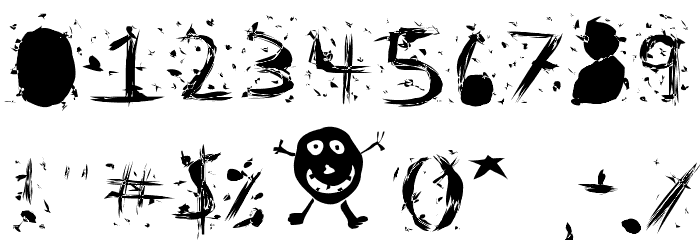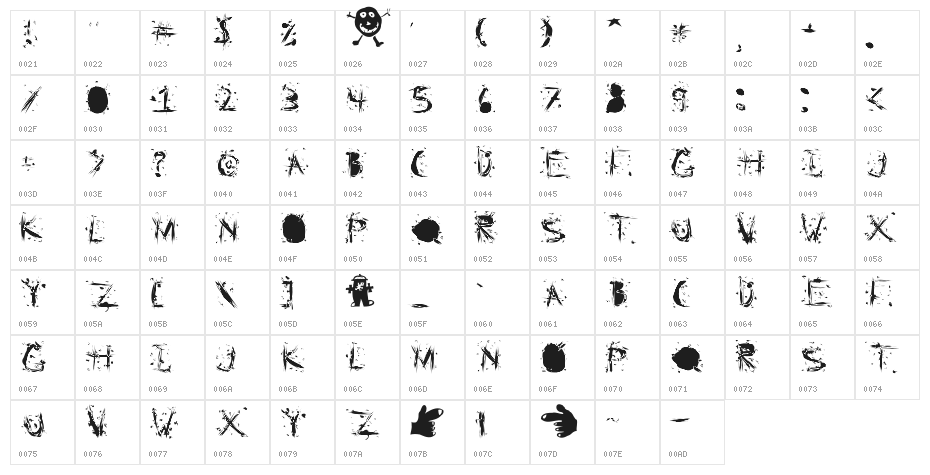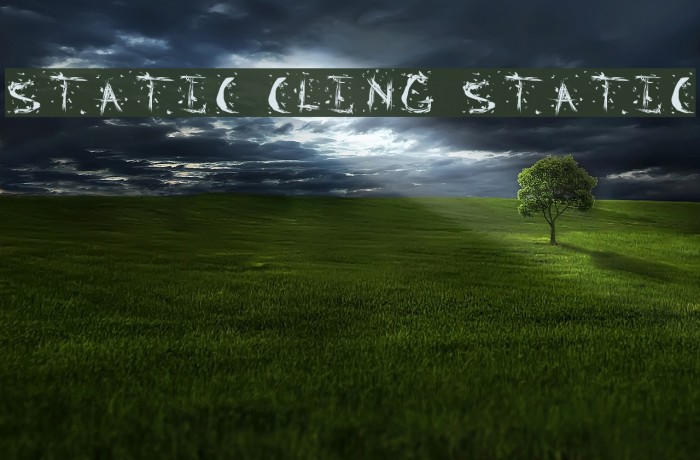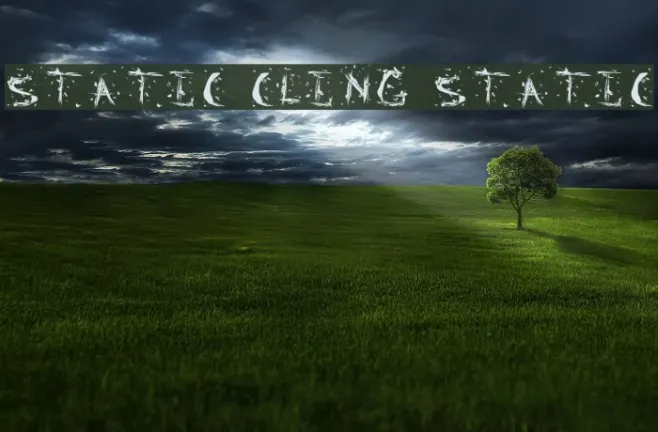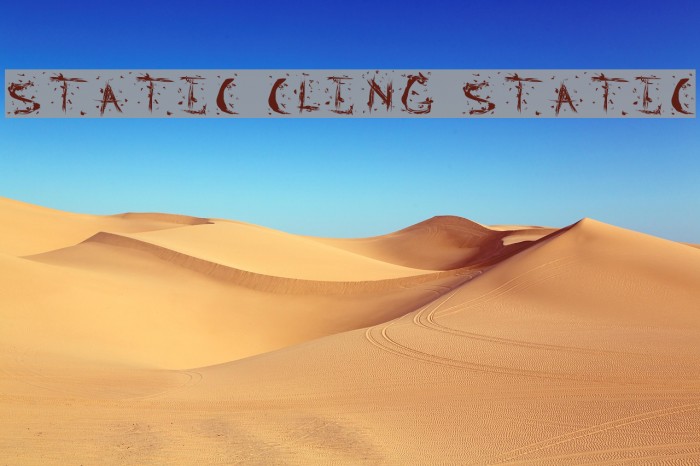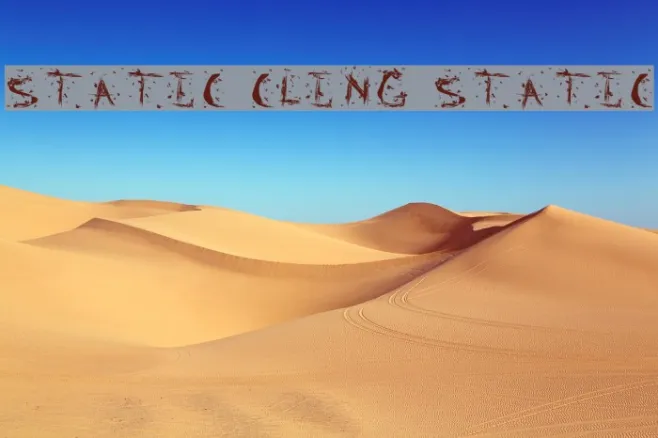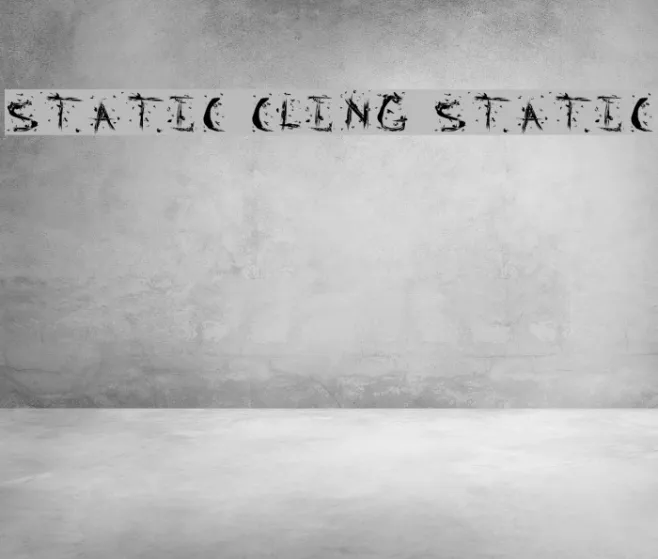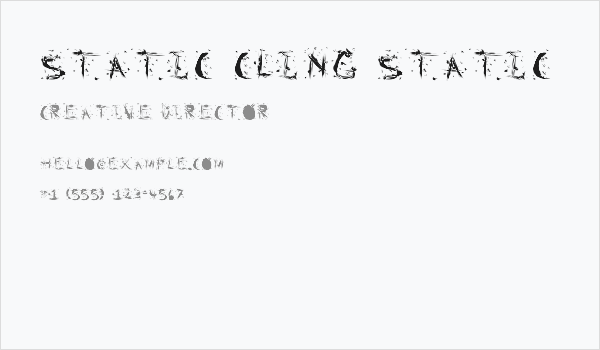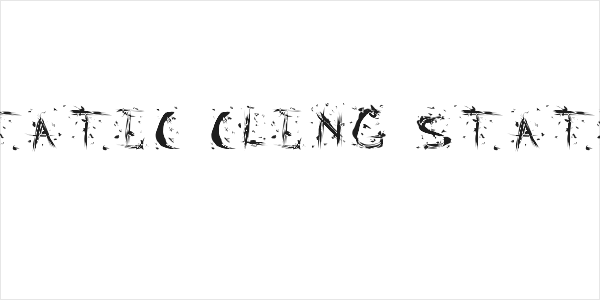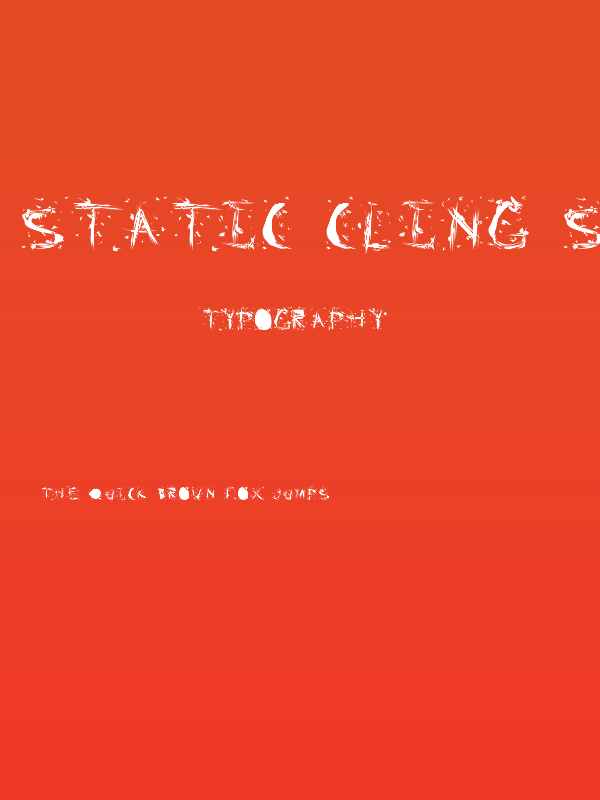
Static Cling Static Font
Static Cling Static Description
This font features a highly distressed and grungy style, characterized by splatters and irregular edges that give it a chaotic and energetic appearance. The letters are bold and impactful, with a rough texture that suggests a sense of movement and unpredictability. Each character appears as if it has been splattered with ink or paint, creating a unique and eye-catching effect. The numbers and special characters follow the same design, maintaining the overall theme of disorder and creativity. This font is perfect for projects that require a bold statement or an edgy, artistic touch.
| Overall Style | Grunge, Artistic |
| Proposed Projects | Ideal for album covers, poster designs, street art projects, or any creative work that requires a bold, edgy aesthetic. |